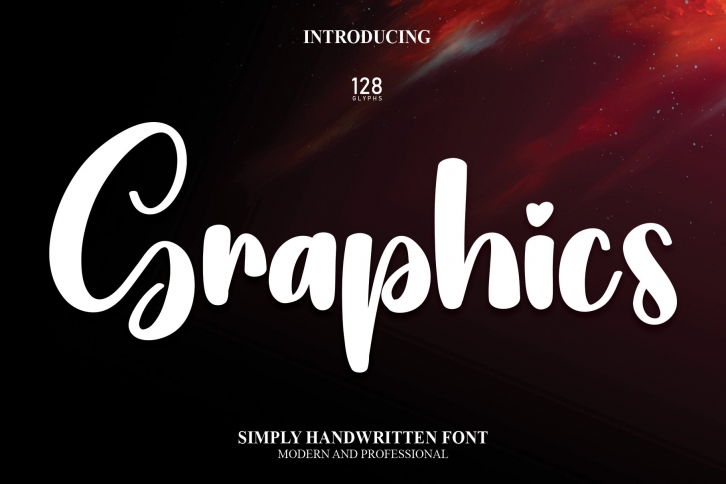
Graphics is a great font that was designed by Scratchones. Imagine the amount of combinations you can create using this font! The archive is 20.66 MB and it was released on September 17, 2022. Graphics looks beautiful on wedding invitations, greeting cards, logos, posters, labels, t-shirt designs, logos, business cards and is perfect for use in ink or watercolor works, fashion, magazines, packaging and food menus, children's books and more!